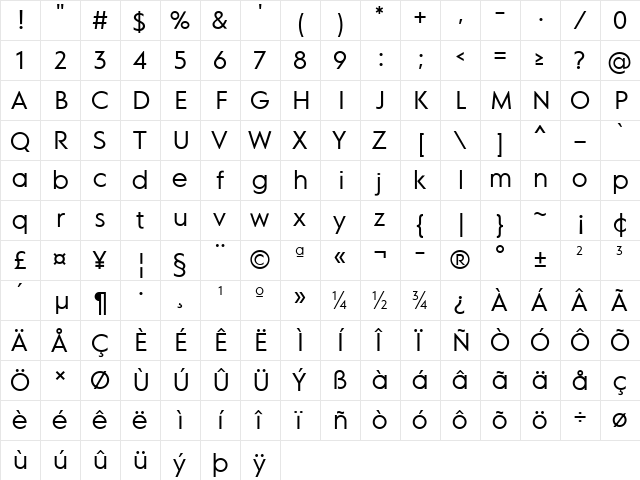
MD Grotesk Regular
| Foundry | Margarita Dyakovich |
| Designer | Margarita Dyakovich |
Design Context for MD Grotesk Typeface
MD Grotesk takes a clean, functional approach — its unadorned letterforms prioritise legibility and work reliably across screen and print environments.
Font Pairing: Works well alongside a characterful serif or display font that can carry the expressive load while MD Grotesk handles the functional copy.
Pro Tip: Pair MD Grotesk with a display or serif font for headlines — its neutral character makes it an excellent supporting player in complex typographic systems.